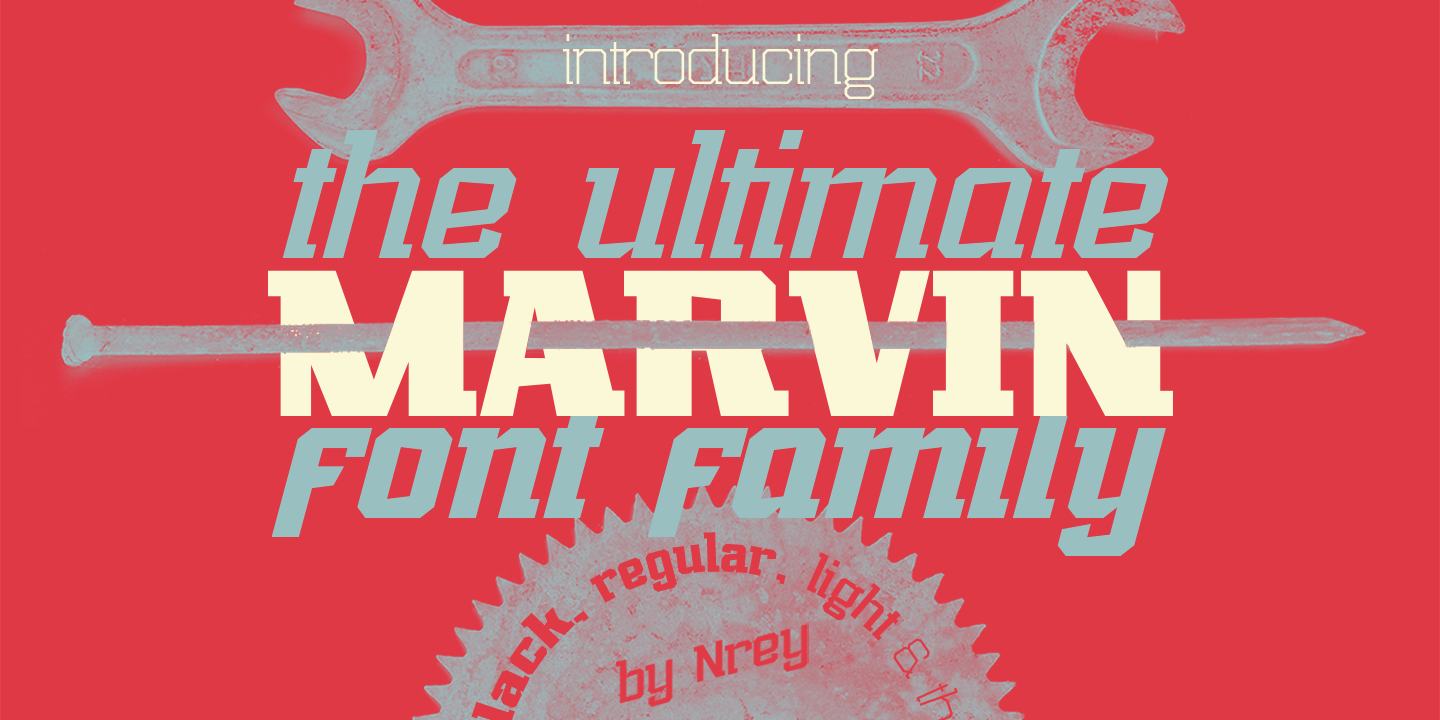
Marvin Slab Font is an outstanding choice for projects seeking a bold, robust, and undeniably strong presence. It's perfectly suited for impactful headlines, sturdy branding, editorial design, packaging, and any application where you need your message to stand out with authority and character. Imagine it dominating a book cover, giving a brand logo a sense of enduring reliability, or making a powerful statement on a marketing banner. Its pronounced serifs and solid construction ensure your text is not just seen, but remembered.
What makes Marvin Slab Font so exciting is its perfect blend of vintage charm and contemporary versatility. It possesses a timeless quality that harks back to classic industrial and academic typography, yet it feels entirely fresh and relevant for modern design. This font isn't just about weight; it's about confidence, stability, and a no-nonsense attitude. It grabs attention without being overly ornate, making it an incredibly effective tool for conveying strength and trustworthiness. Marvin Slab Font empowers designers to create visuals that are both aesthetically pleasing and incredibly assertive.
The Marvin Slab Font family typically boasts a comprehensive array of weights and styles to provide maximum design flexibility. You can expect to find a broad spectrum from Light or Thin, through Regular, Medium, and Semibold, all the way to a commanding Bold or Black weight. This extensive range allows for sophisticated typographic hierarchies and ensures that whether you need subtle emphasis or an undeniable declaration, the Marvin Slab Font Free Download provides the foundational versatility you need for any project.